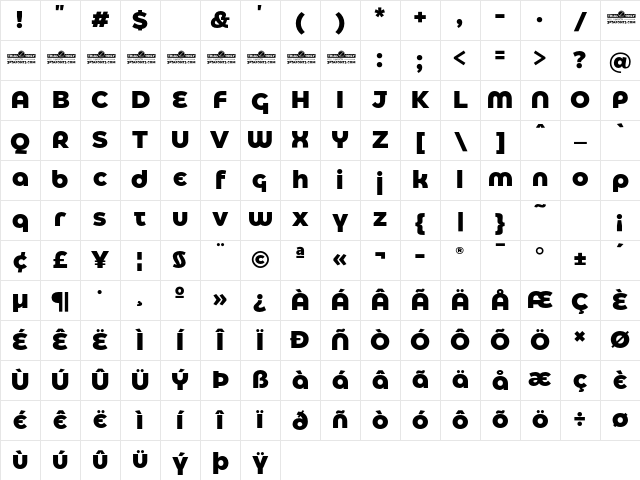
Complete Eastman Alternate Trial Extrabold glyph index. Displaying only characters natively supported by Eastman Alternate Trial Extrabold font.
Eastman Alternate Trial is a composed and adaptable typeface that performs quietly and consistently across a wide range of design contexts. Its bold stroke weight gives it real presence on the page.